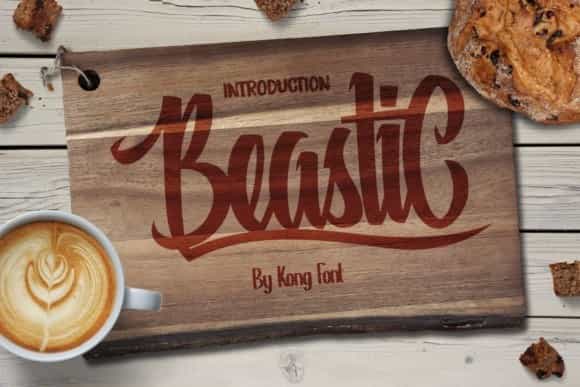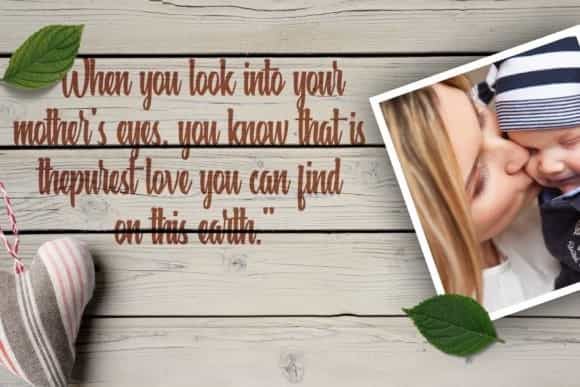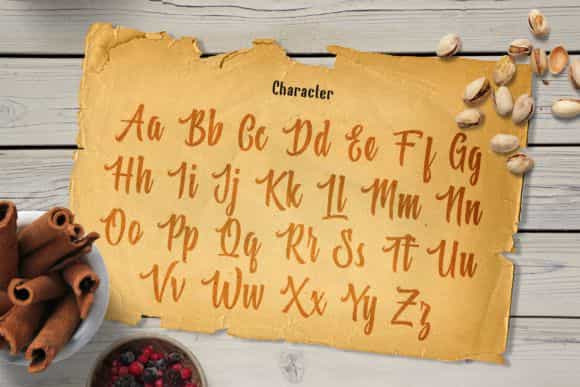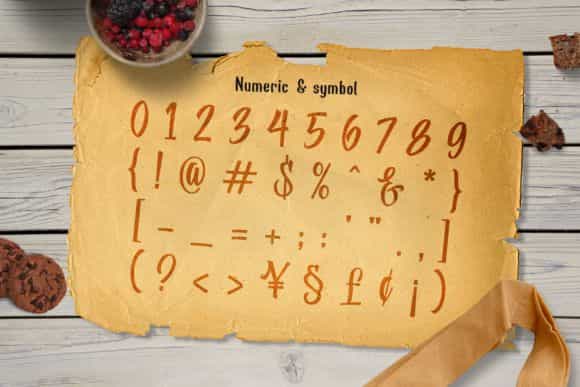
The Beastic font has energy and handwritten texture. The great thing about Beastic is that it has organic, yet very clean texture; its’ beauty shows to best advantage both small and large scale! Beastic has three sets of lowercase letters to transform your ordinary text into anything handwritten.